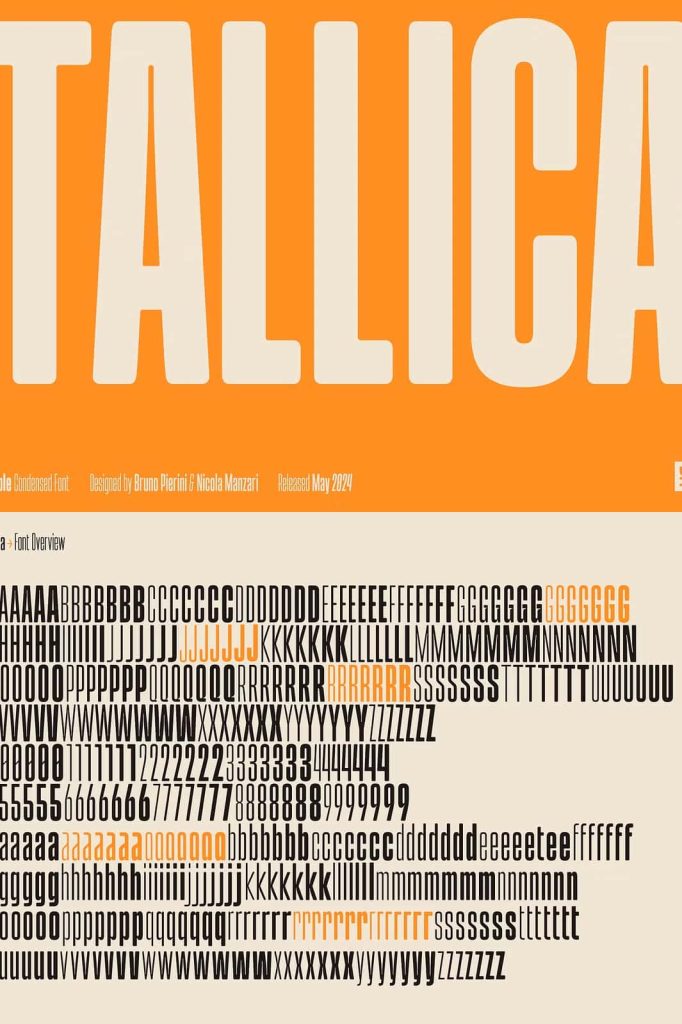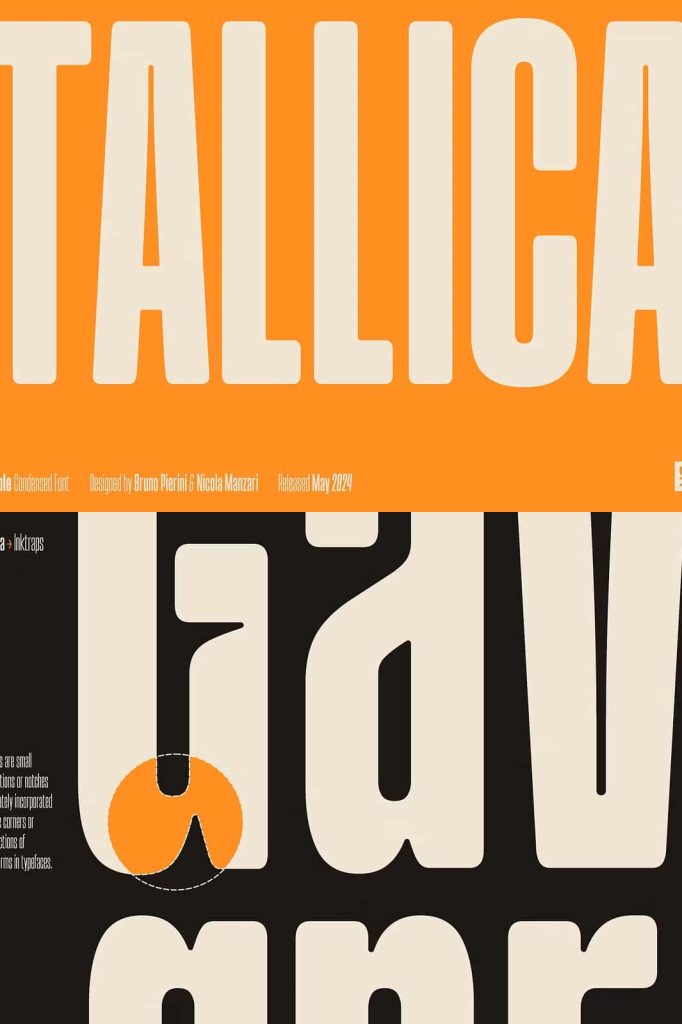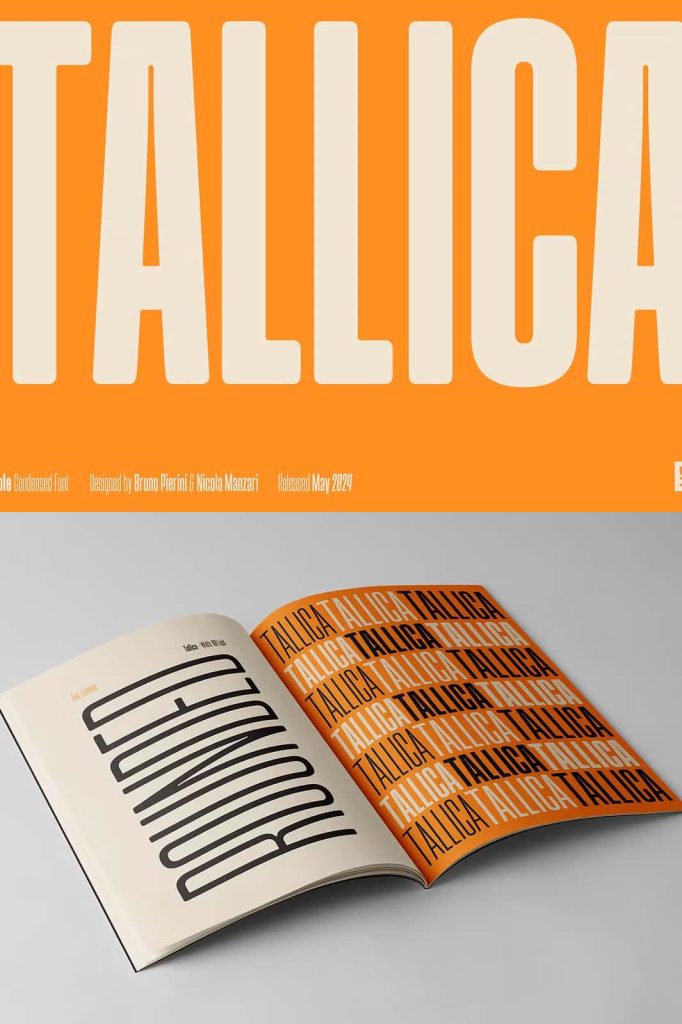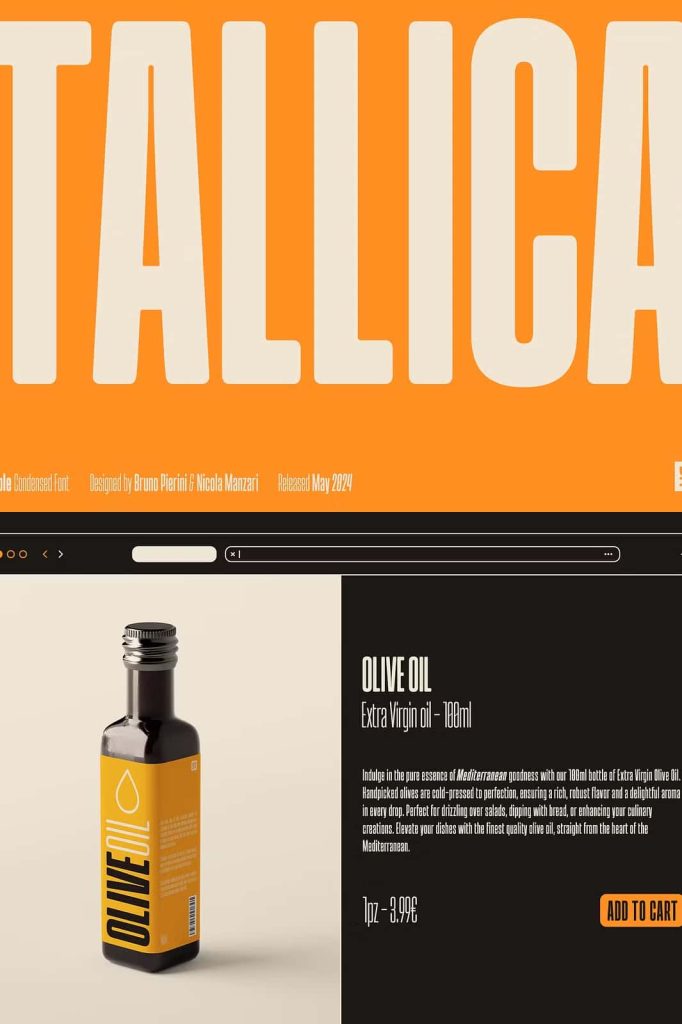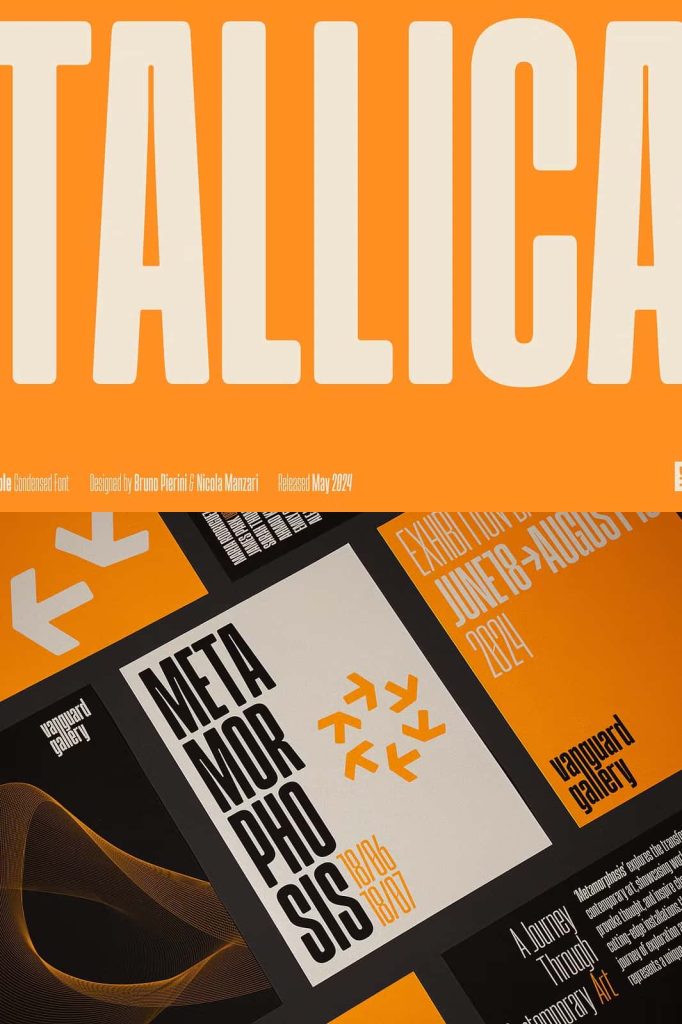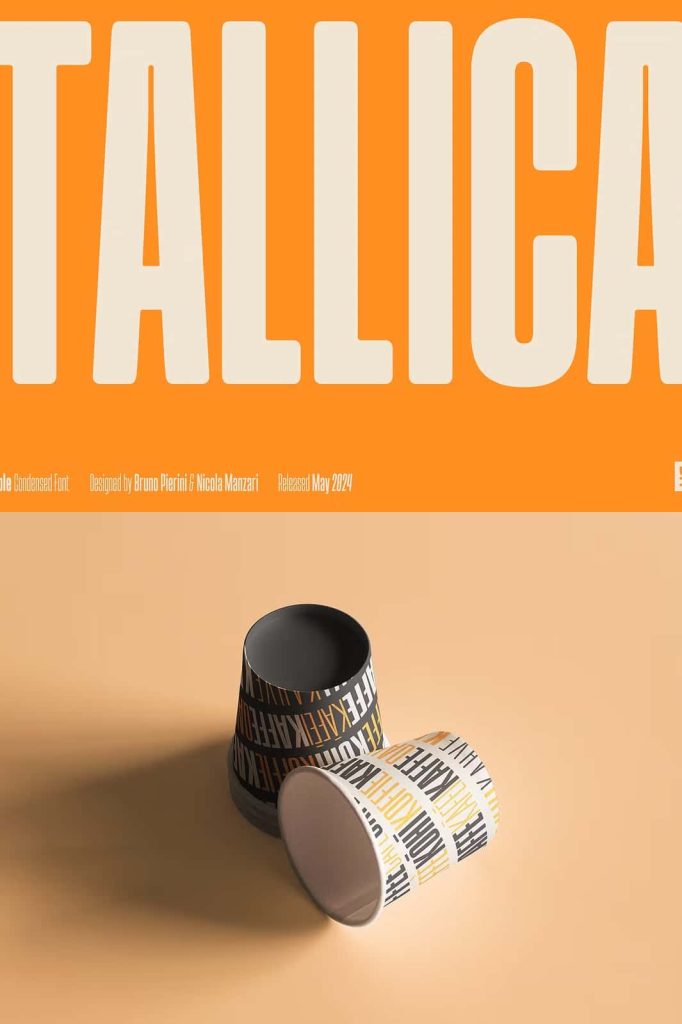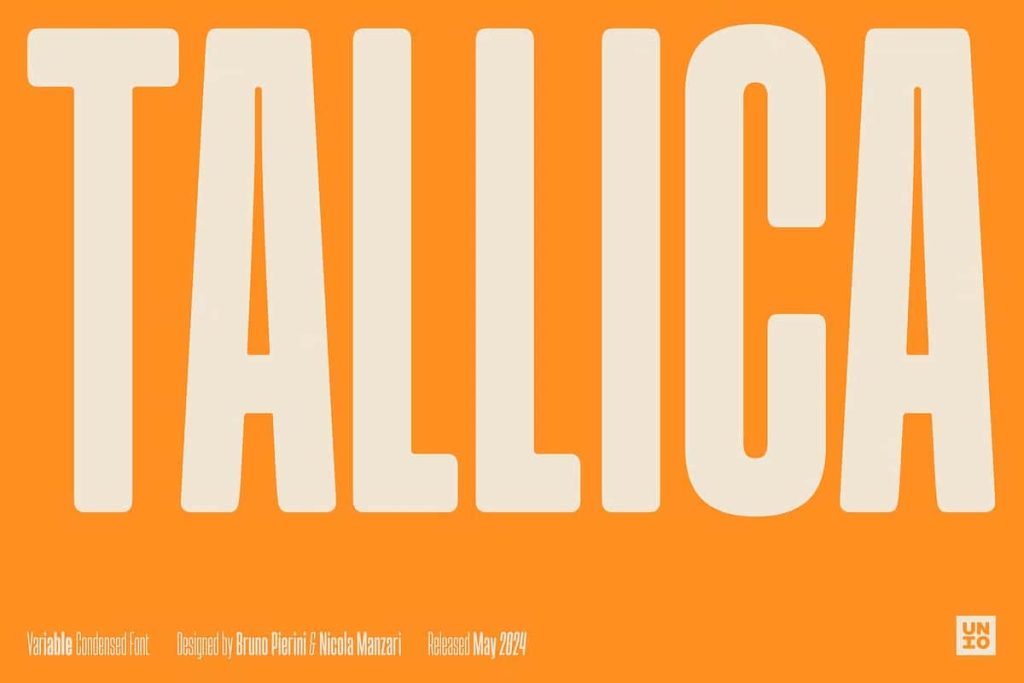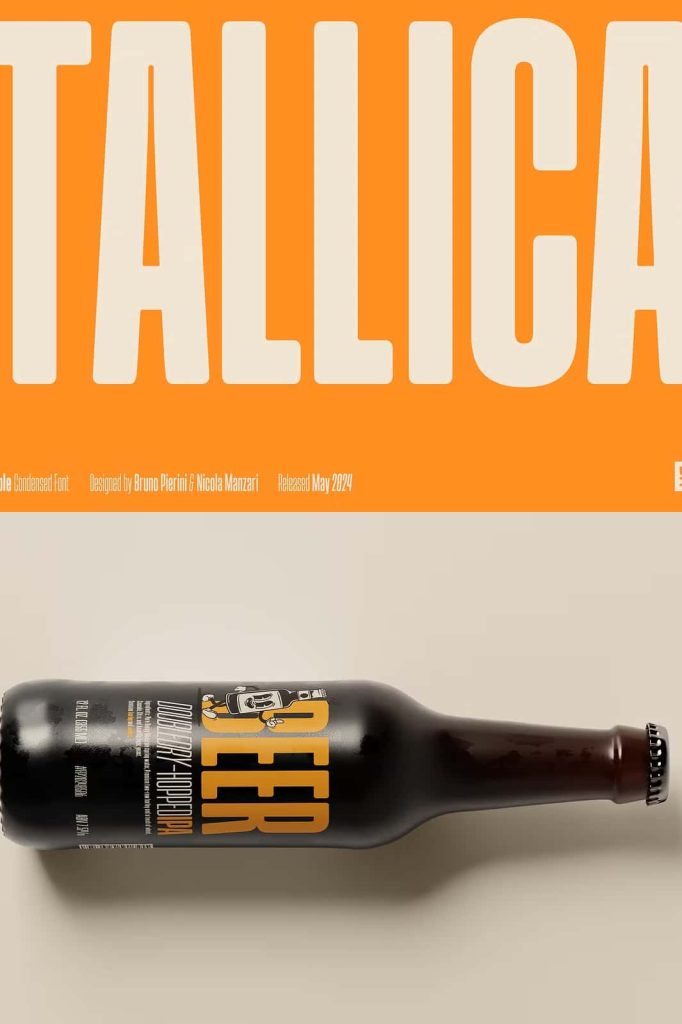
Tallica, is an extra condensed grotesque typeface designed to steal the show. Its meticulously crafted ultra-compressed letterforms pack a powerful punch